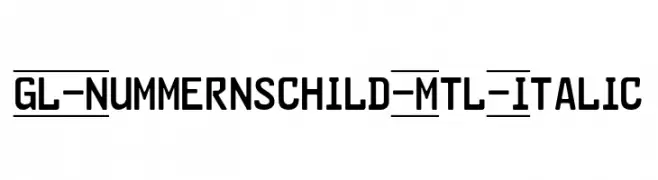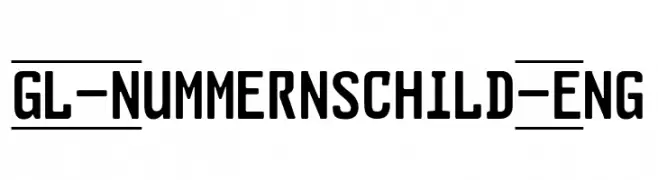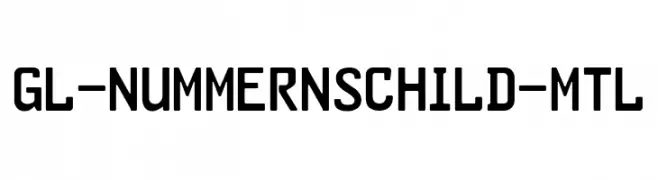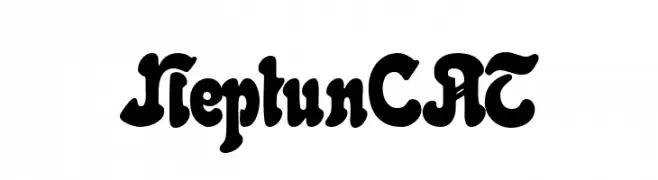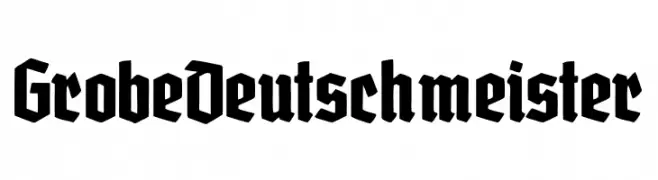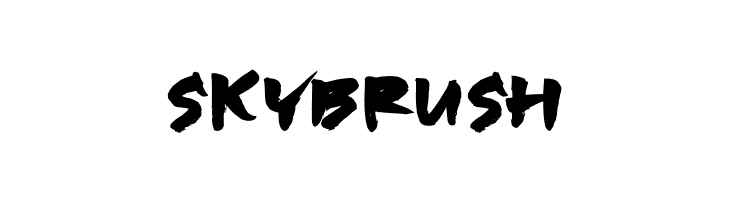
A bold, geometric font with a modern, industrial style.
A bold, geometric font with a vintage industrial style.
A bold, geometric font with a modern, industrial aesthetic.
A bold, dramatic font with vintage and gothic influences, featuring thick strokes and sharp angles.
A bold, cursive script with interconnected letters and a lively, handwritten style.
A bold, playful font with rounded strokes and a whimsical, retro-modern style.
An elegant, decorative font with ornate uppercase and script-style lowercase letters.
A traditional Blackletter font with ornate, angular lines and dramatic flourishes.
A bold, blackletter font with sharp, angular lines and a Gothic aesthetic.
A bold, geometric font with a modern and versatile style.